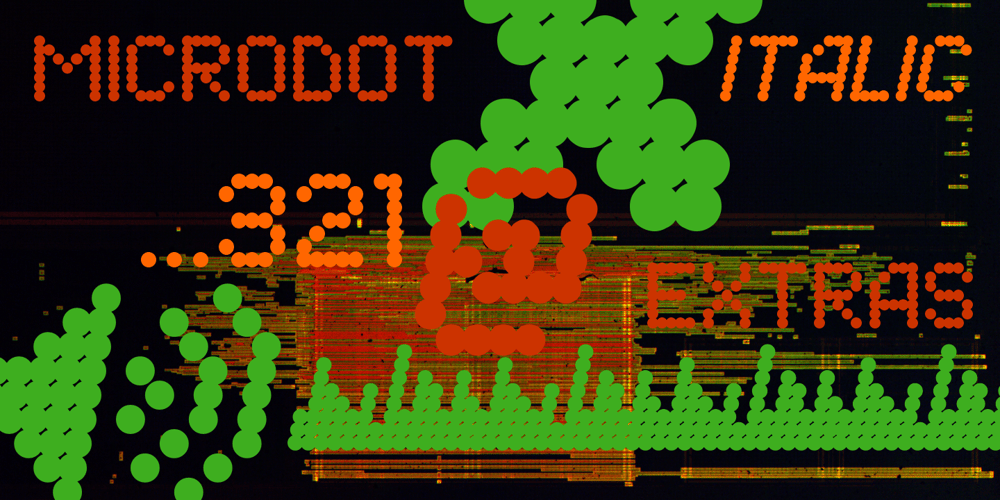
Microdot
Microdot font
Microdot Font Family was designed by Lukyan Turetskyy and published by 2D Typo. Microdot contains 3 styles and family package options. Microdot is a pixel typeface that uses 5 by 7 grid. Fonts supports Latin, Cyrillic, and Hebrew, all with thoroughly designed diacritics. Microdot makes use of advanced OpenType features, just as any other modern text typeface.